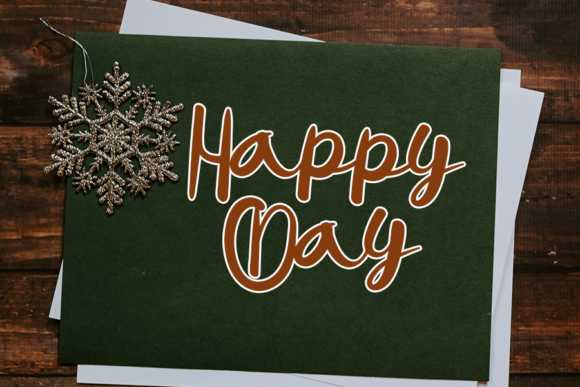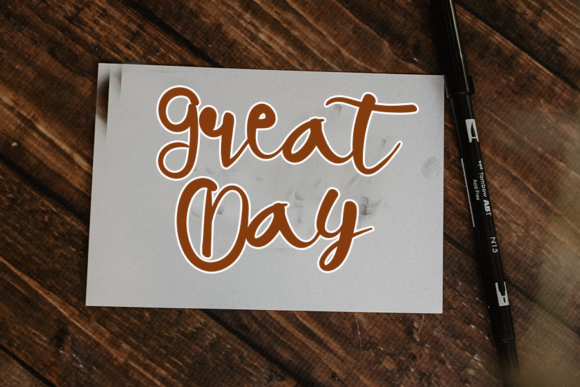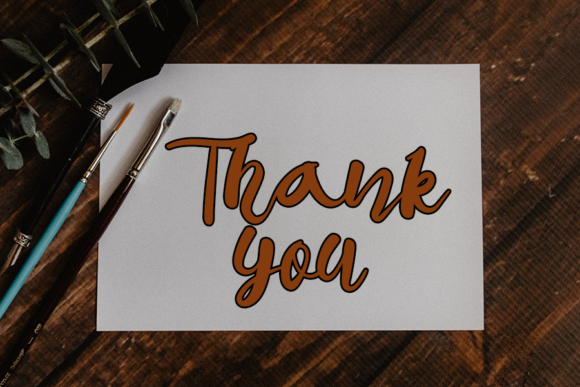
Quotes Font
About Quotes Font
Quotes is a chic, refined script font that emanates sophistication and elegance. Its stylish alternates and ligatures make this font the perfect match for any project.